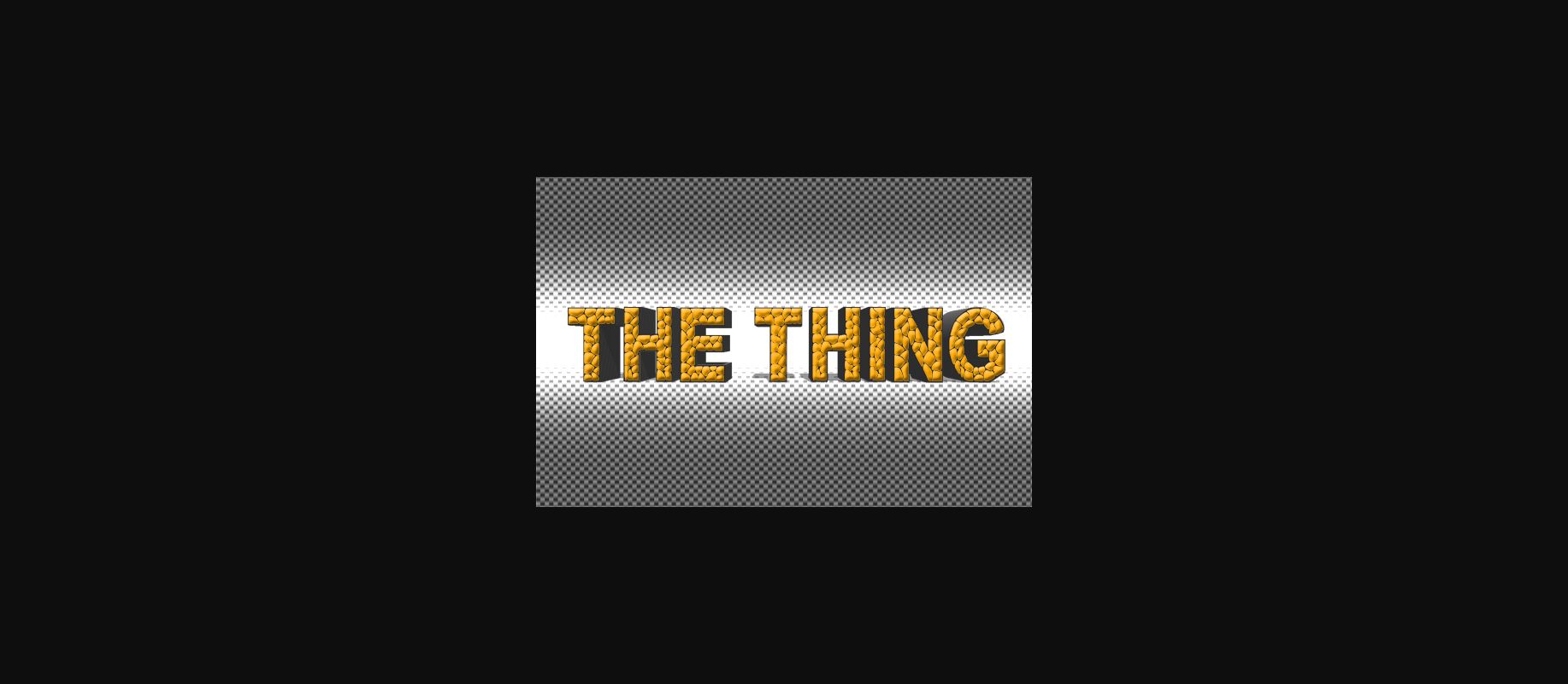
The Thing Font
About The Thing Font
The Thing is a decorative font. The letters look like they were made from stones which will make our design stand out and give it a unique look.